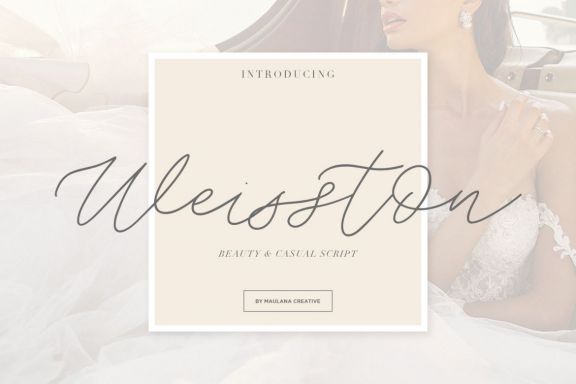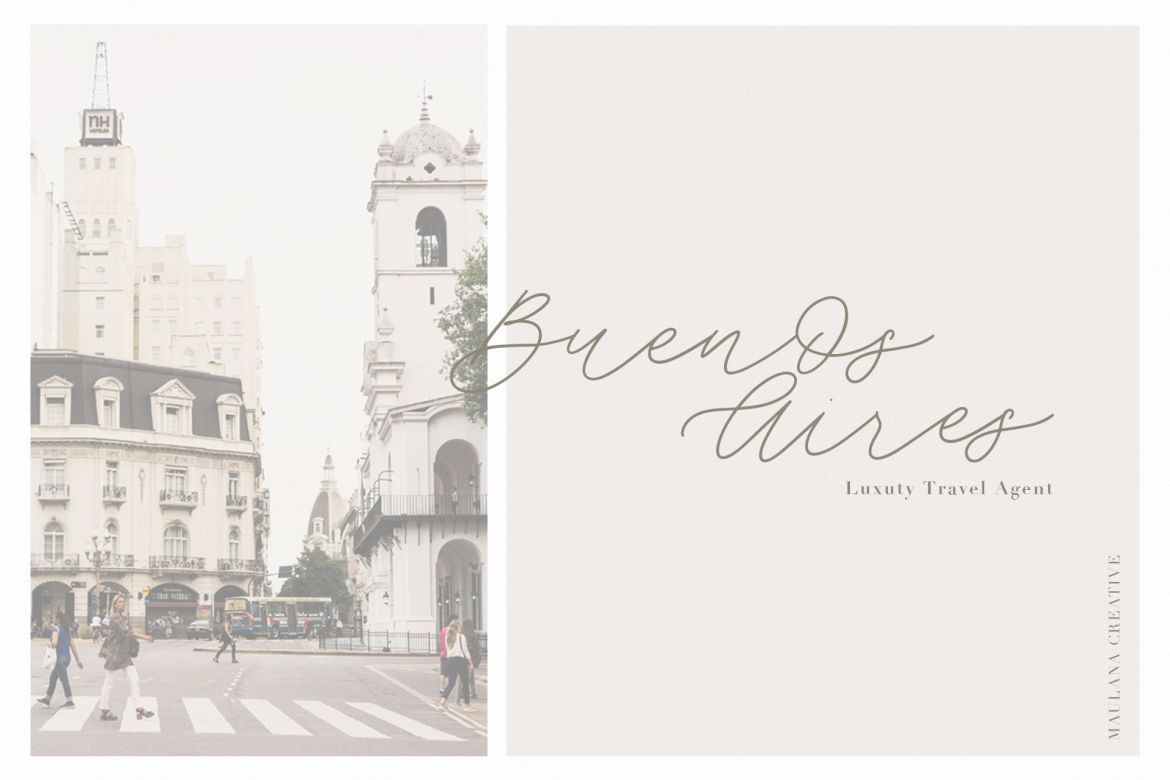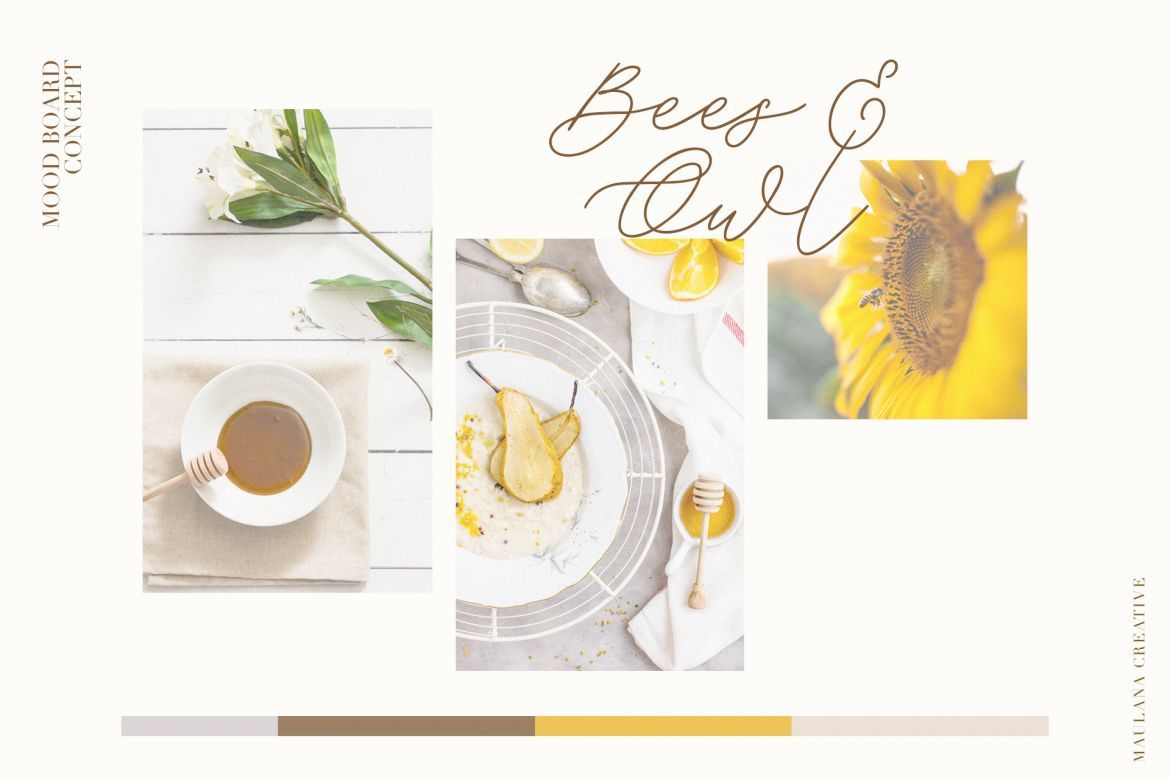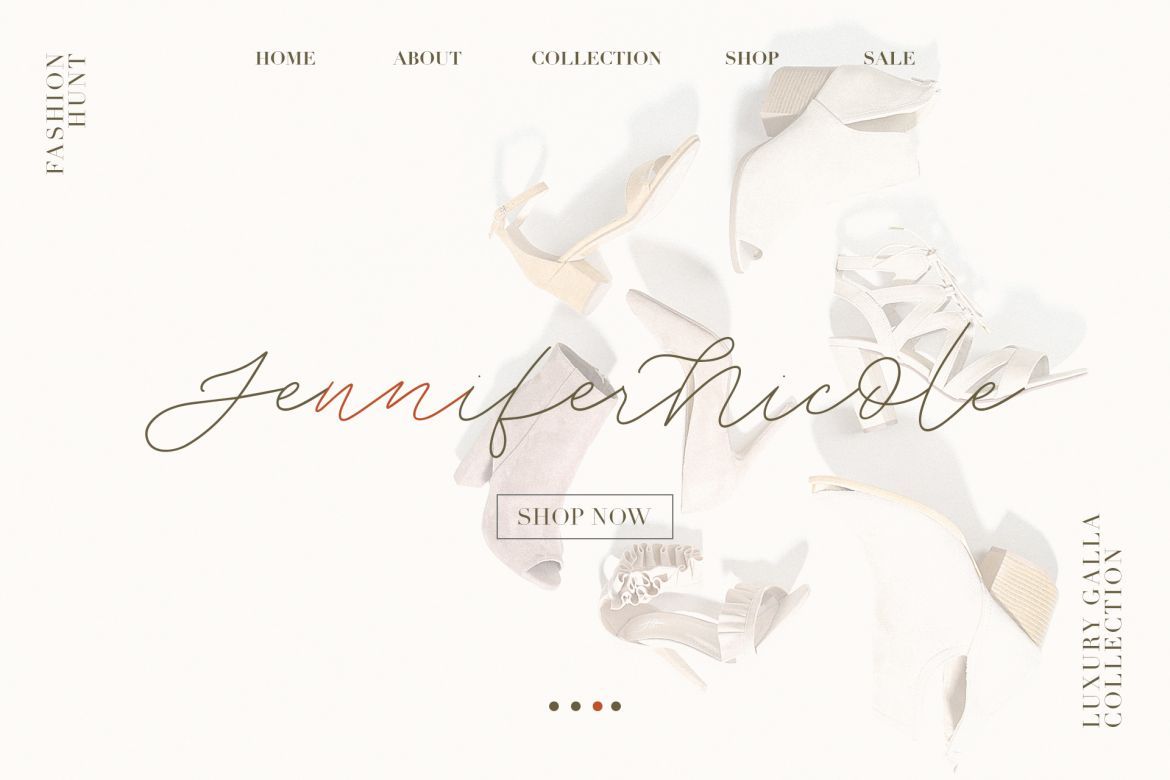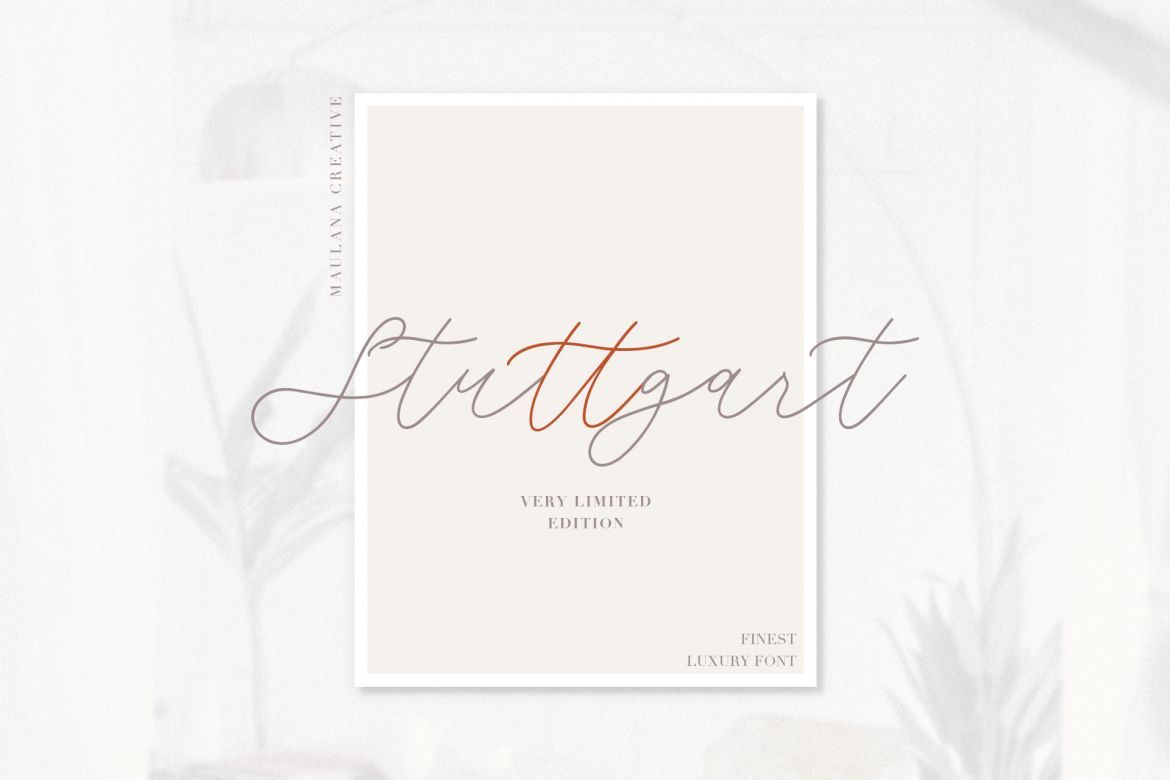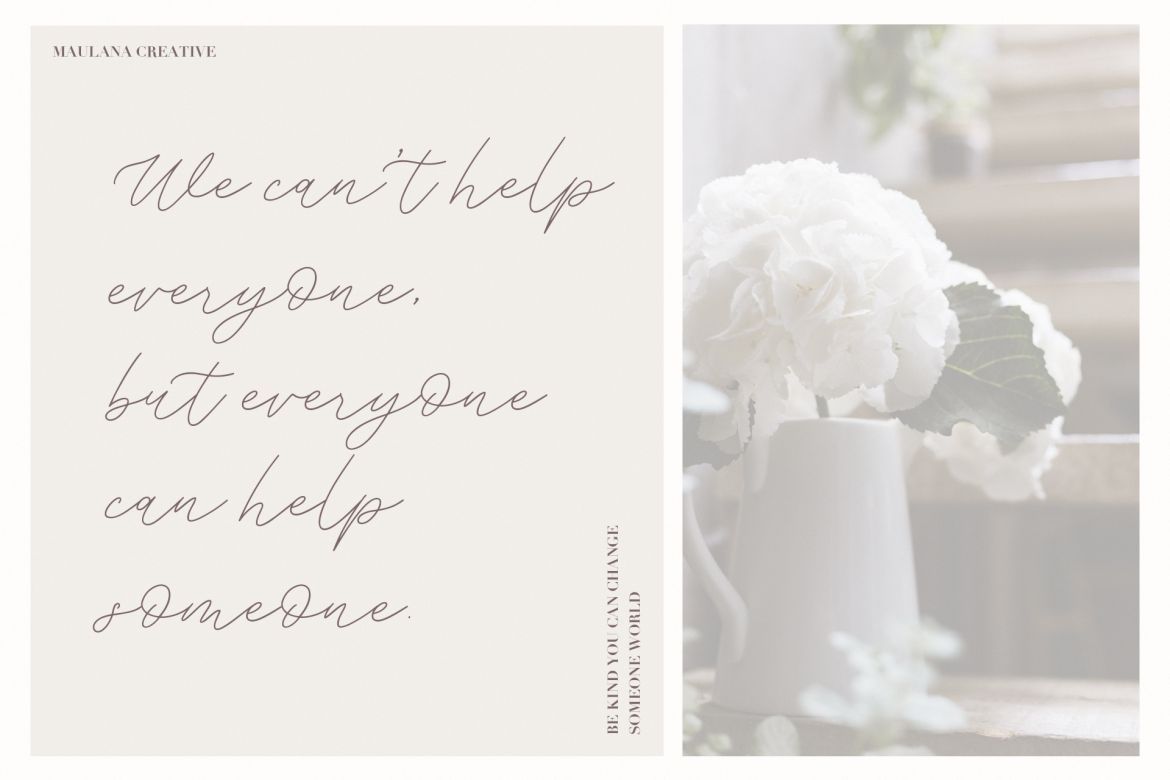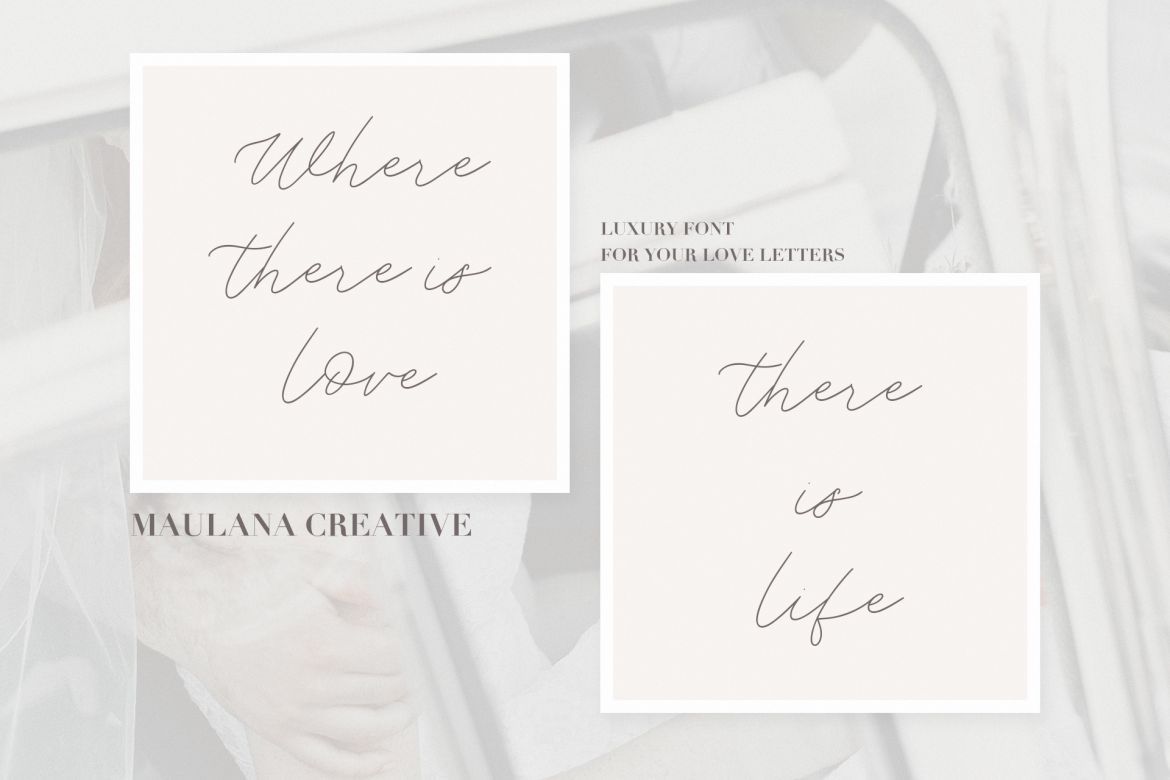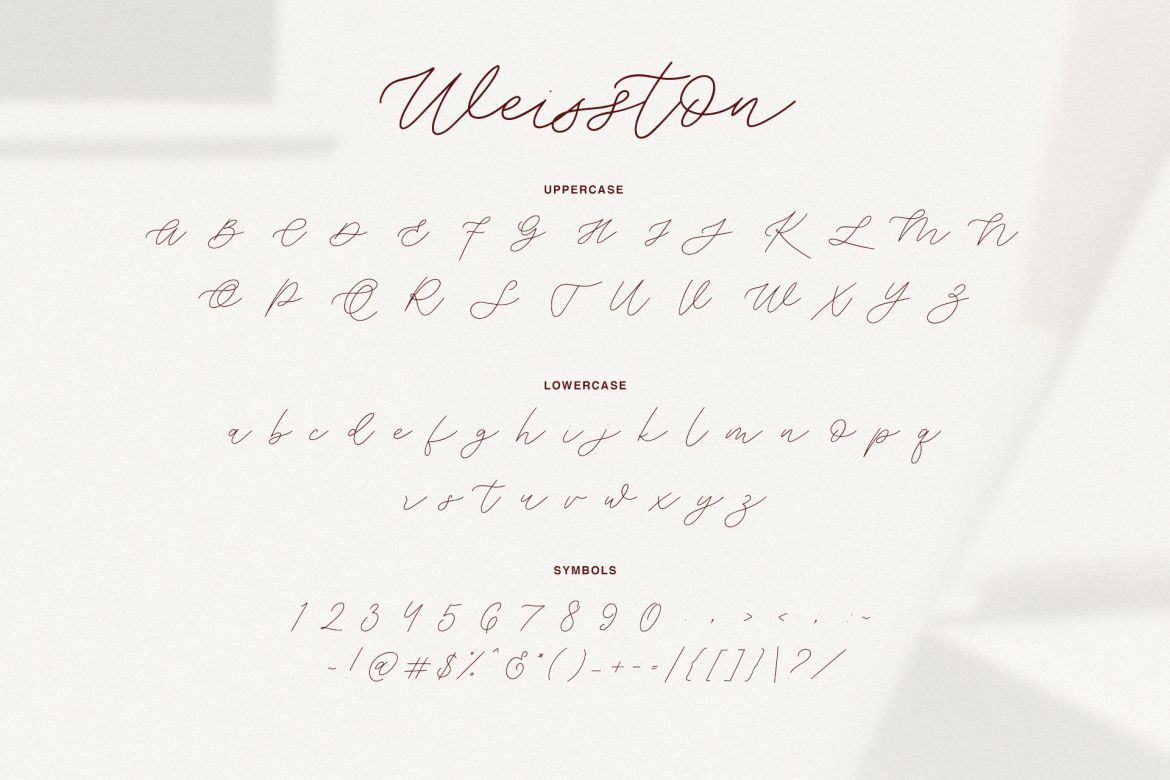
Weisston - Script Font
Give your designs an authentic handcrafted feel. "Weisston" is perfectly suited to signature, stationery, logo, typography quotes, magazine or book cover, website header, clothing, branding, packaging design and more. Include Ligatures mm, nn, oo, rr, ss, tt.